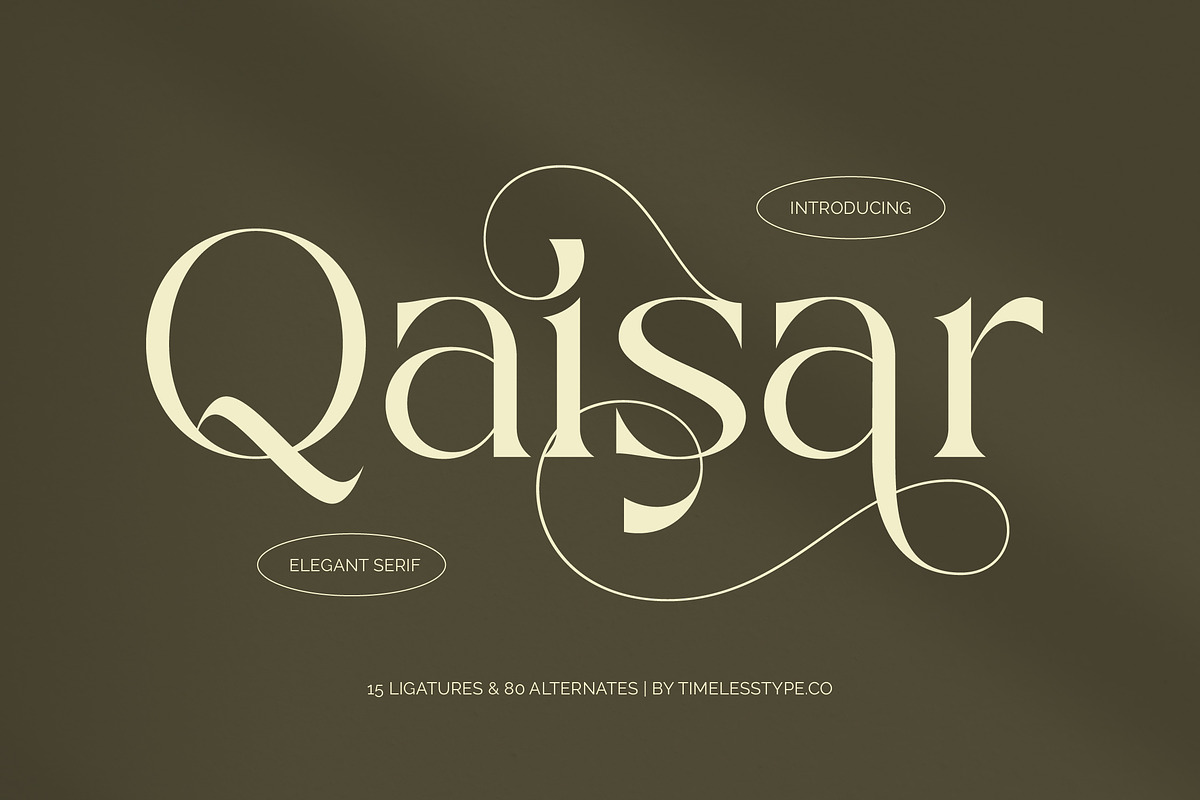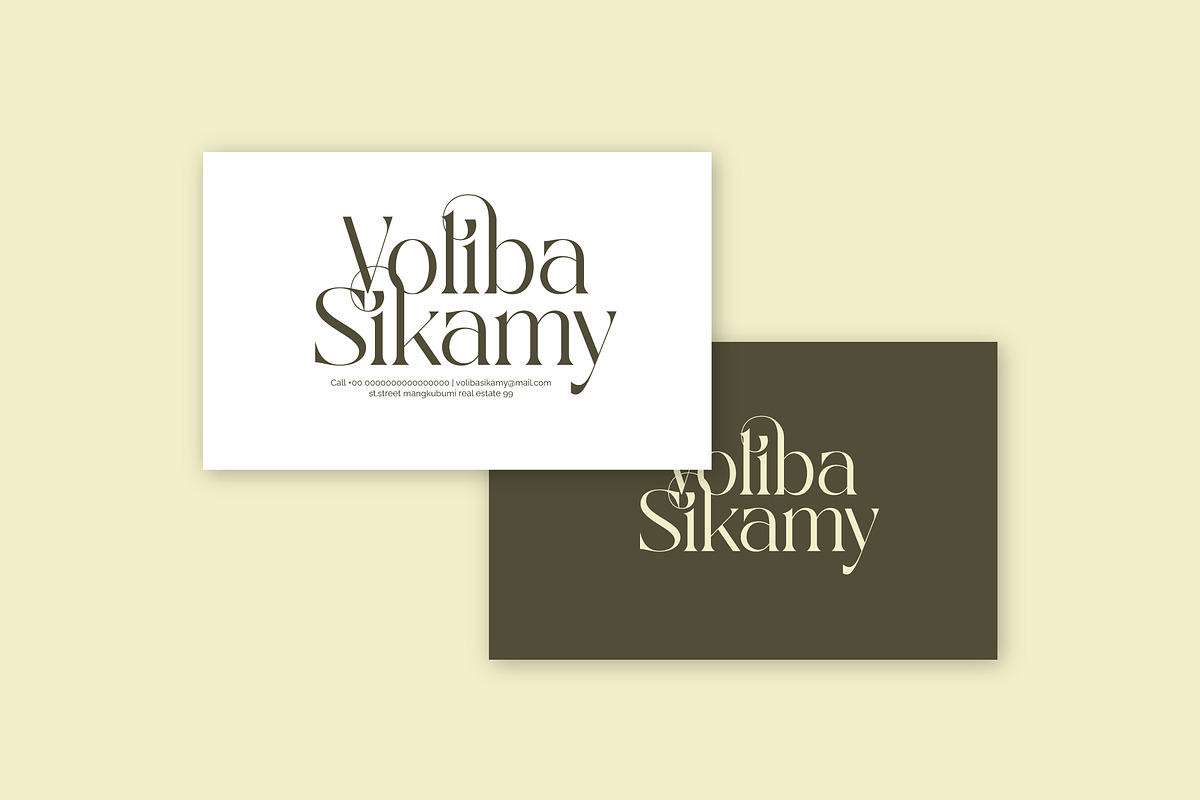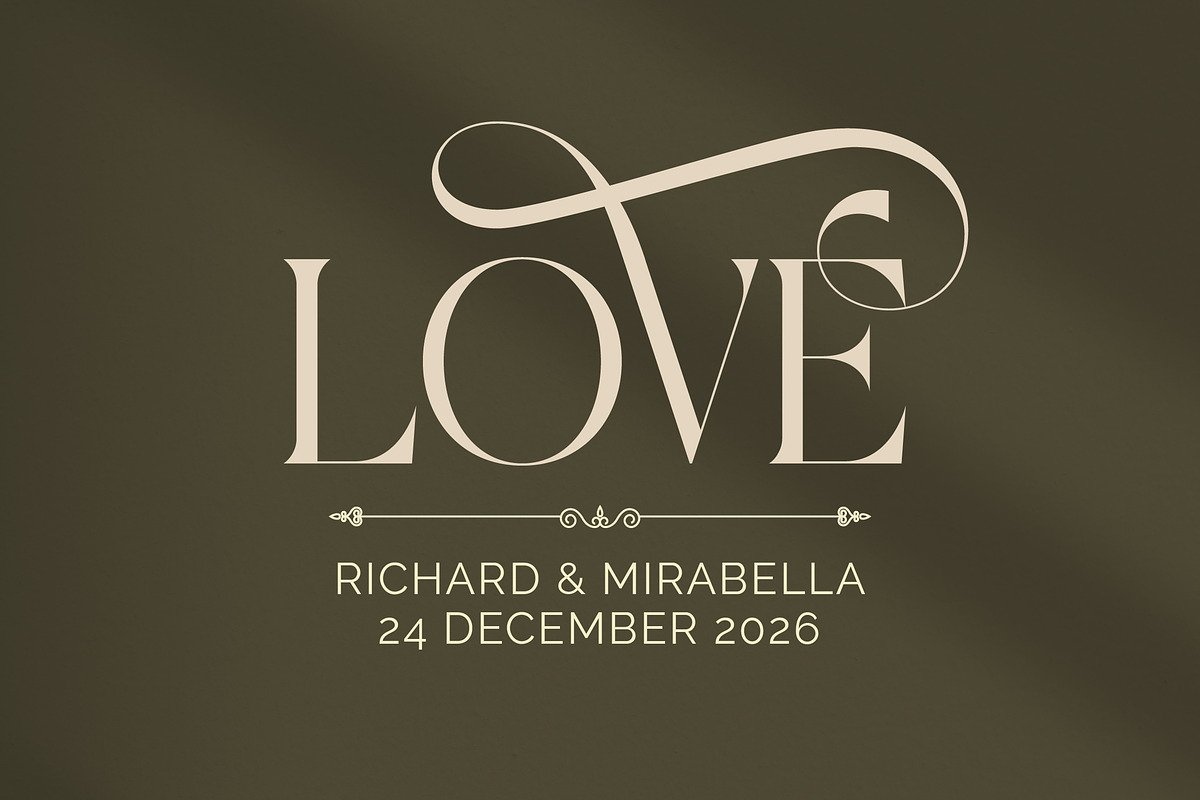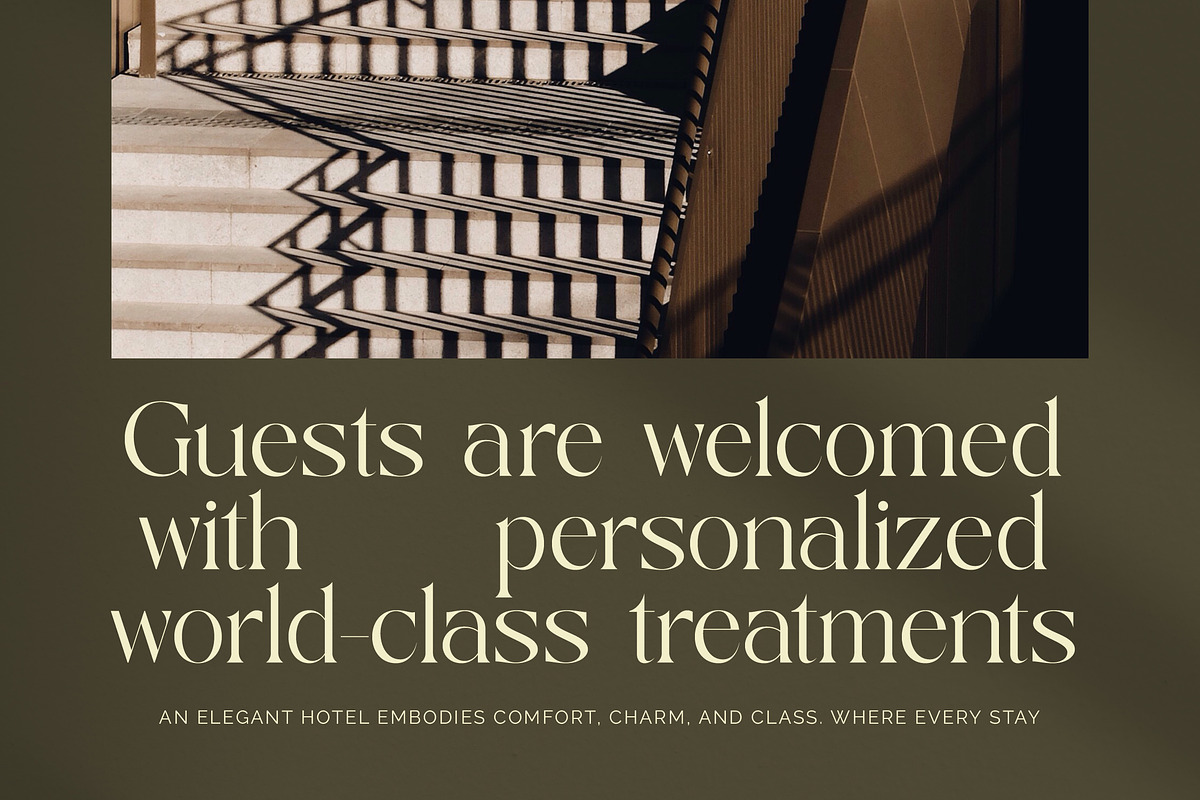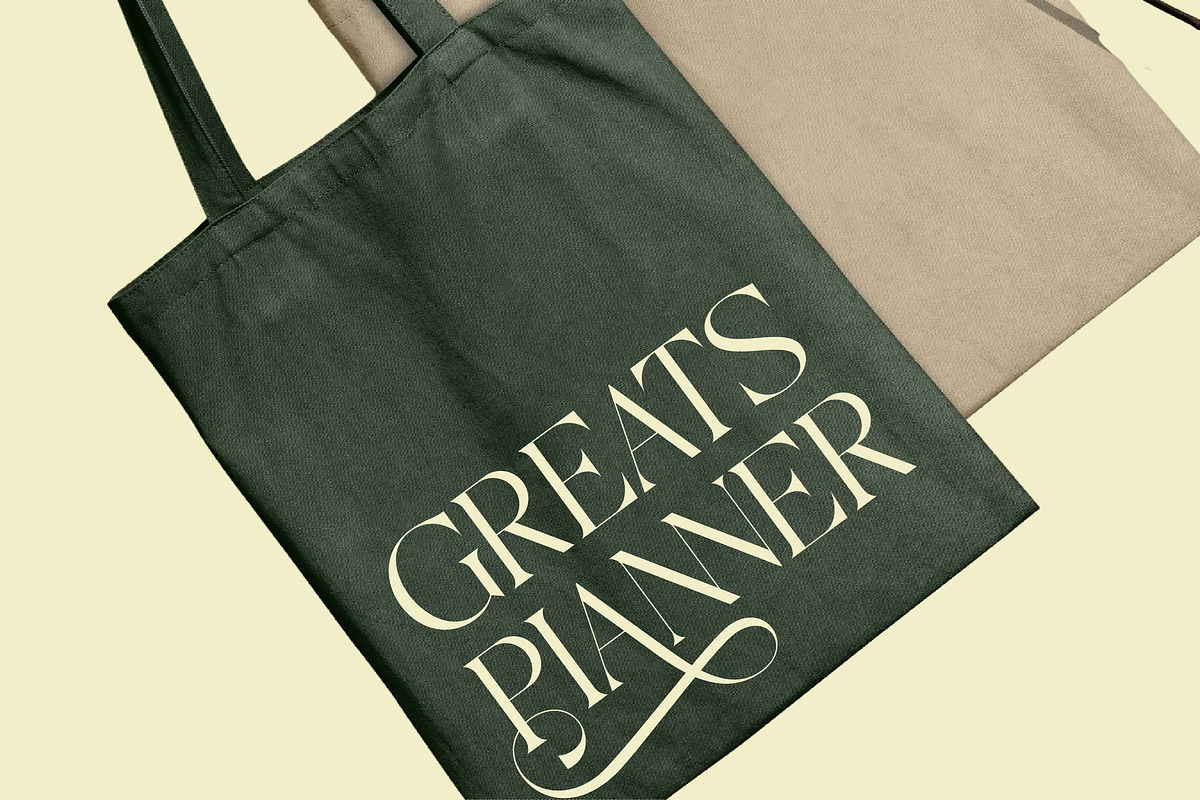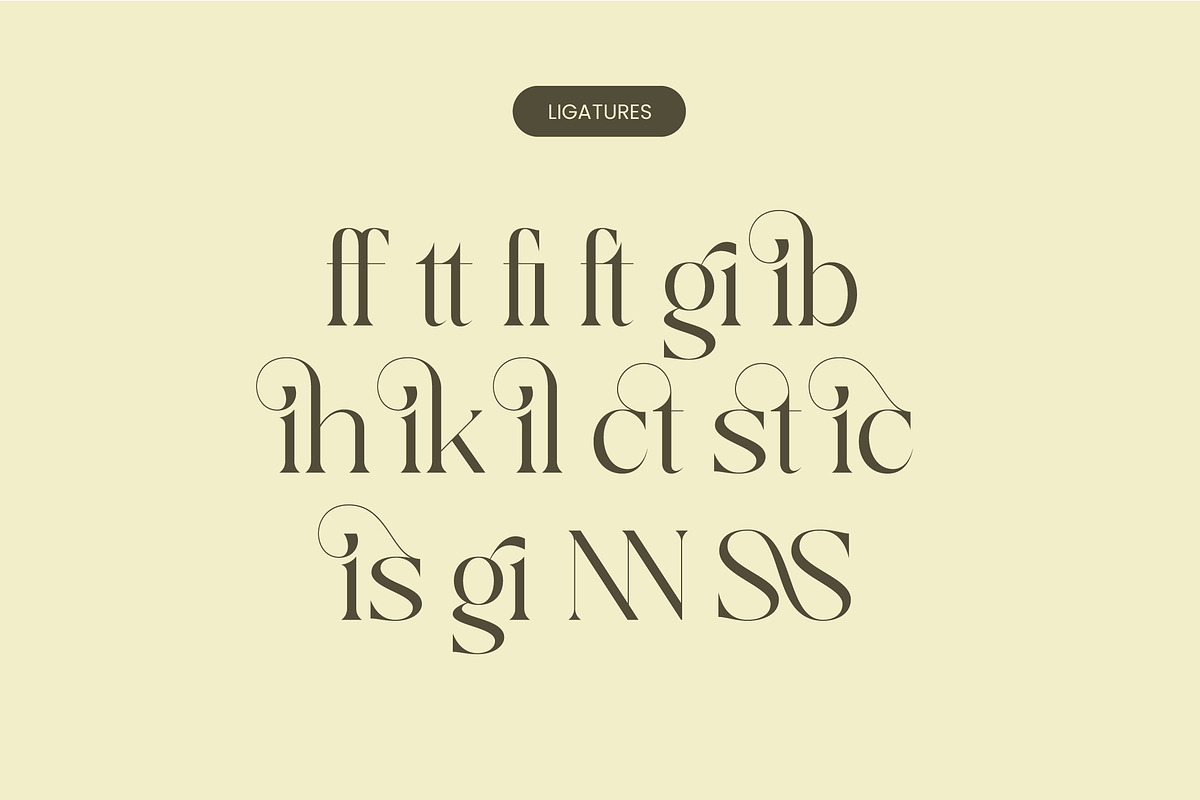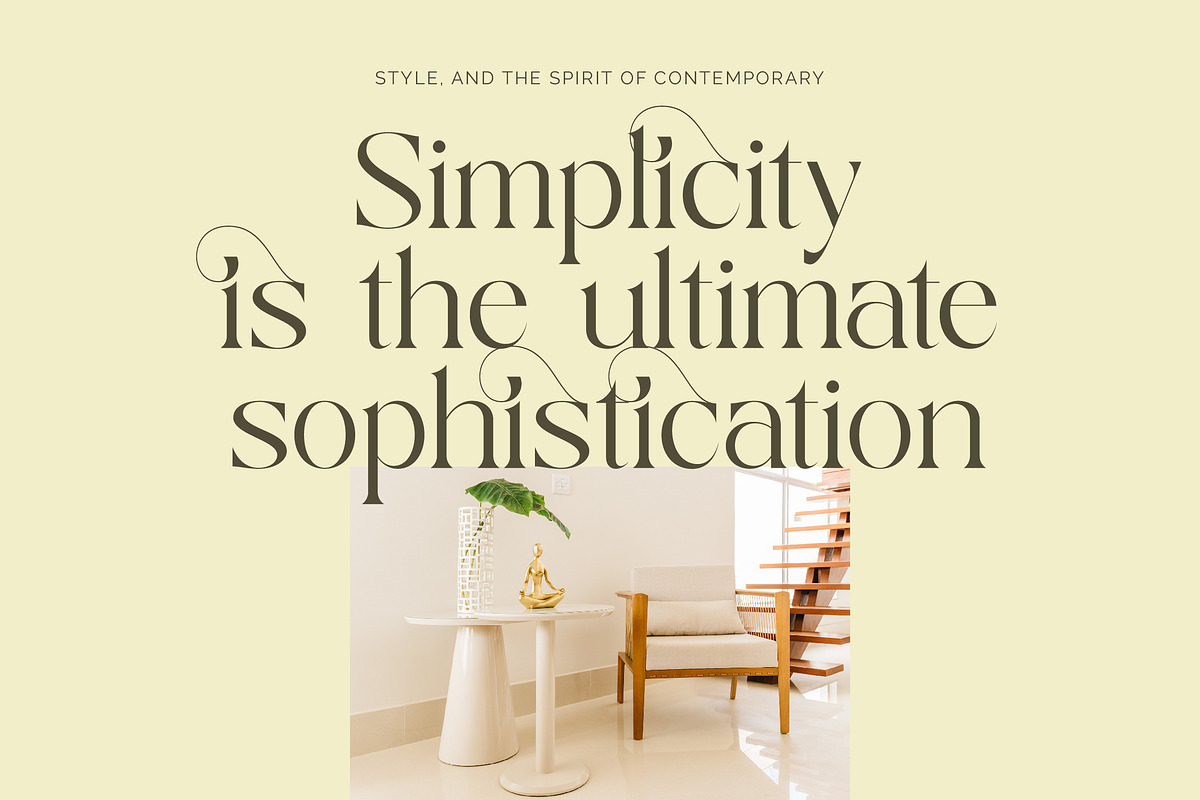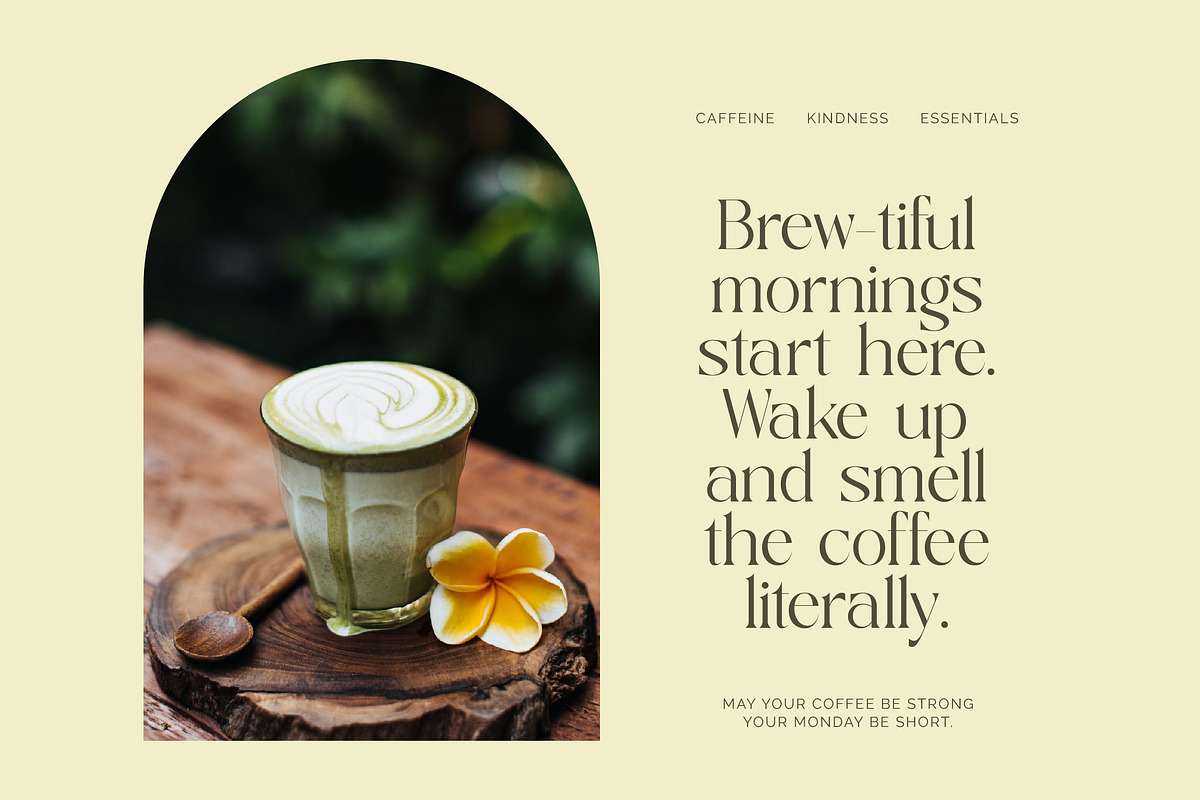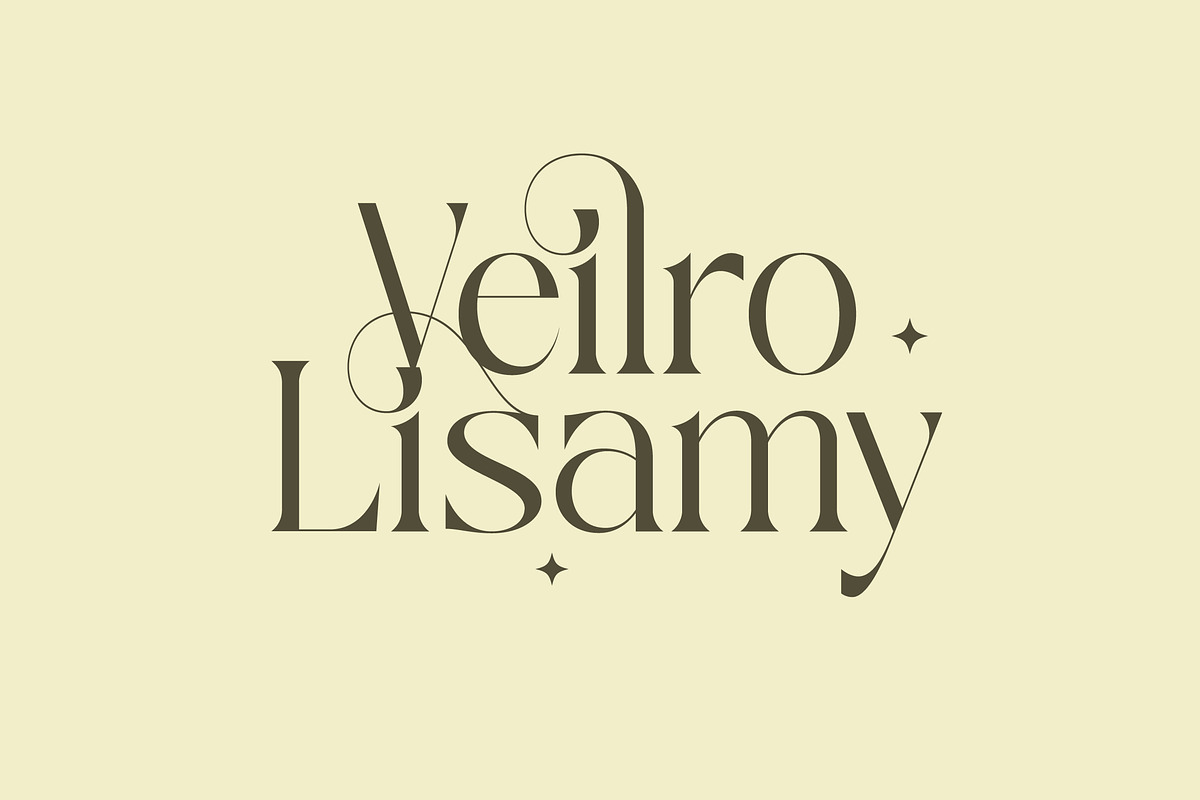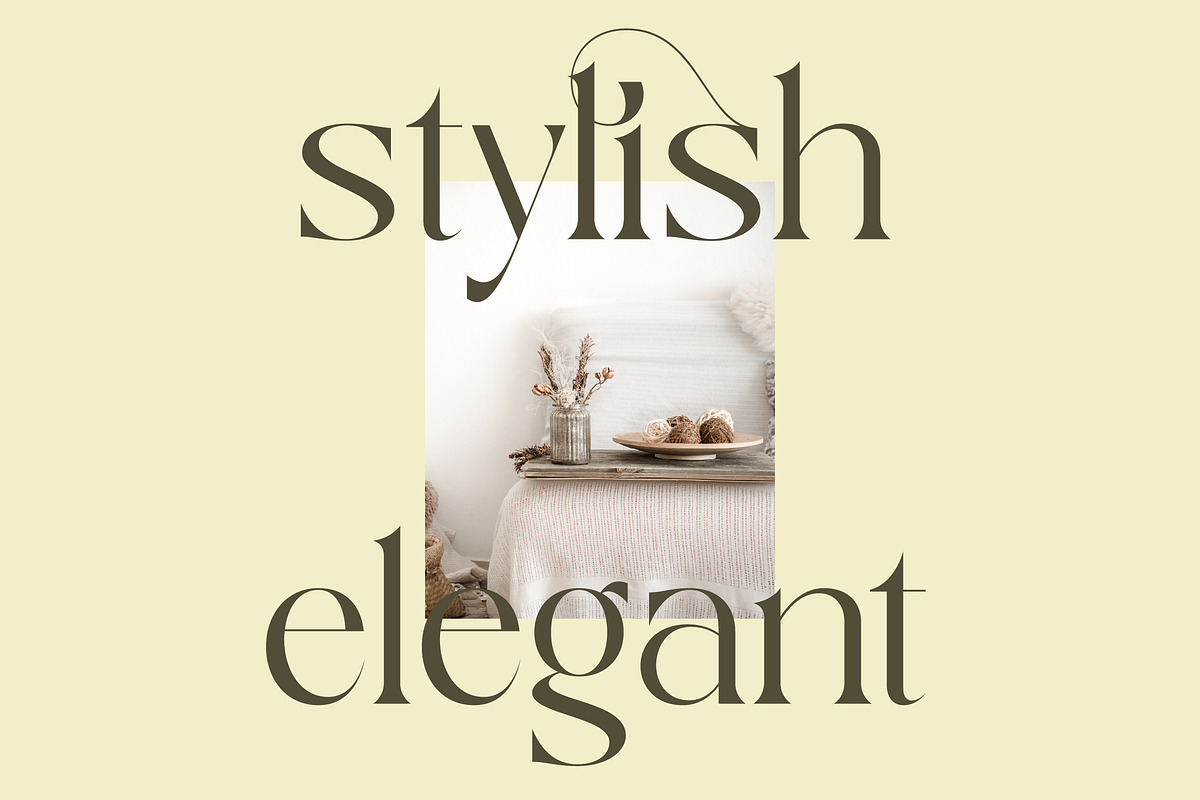
Qaisar Elegant Modern Serif
Step into a world of refined sophistication where every curve tells a story of grace and poise with Qaisar. This typeface is more than just letters; it is a visual symphony designed to elevate your creative vision to new heights of excellence.
Drawing inspiration from the gilded age of haute couture and the clean lines of neoclassical architecture, this font captures a timeless aesthetic. The delicate balance between its sharp serifs and flowing flourishes evokes an atmosphere of quiet confidence and unparalleled prestige.
This modern serif display is engineered for maximum luxury typography applications, ensuring your message is delivered with a premium touch. Its high-contrast serif design creates an immediate editorial font appeal that guarantees a lasting branding impact for any high-end project.
Perfectly aligned with the current modern serif trend, this typeface meets the demand for editorial display fonts that offer both legibility and artistic flair. Designers seeking character-driven typography will find its unique silhouettes and swashes to be the ultimate tool for contemporary visual storytelling.
From high-concept logo design to cohesive corporate branding, this versatile face shines in every application. It is the ideal choice for editorial layouts, luxury packaging, romantic wedding stationery, and avant-garde fashion magazines.
This comprehensive pack includes a rich library of 15 ligatures and 80 creative alternates to provide endless customization options. Complete with elegant swashes, full multilingual support, and a wide array of international characters, it offers everything needed for global design success.
- Ligature 15 Alternate 80